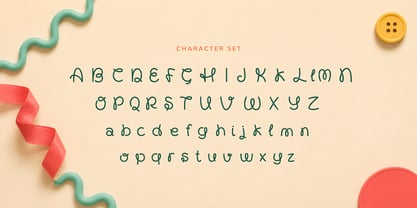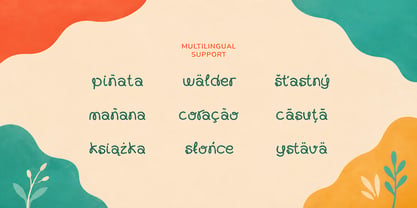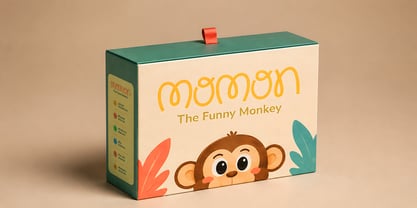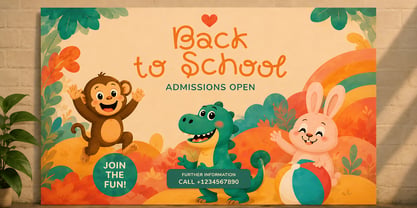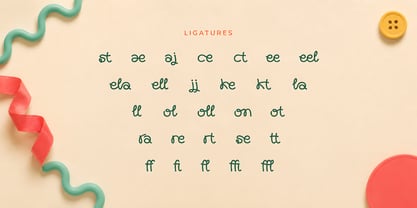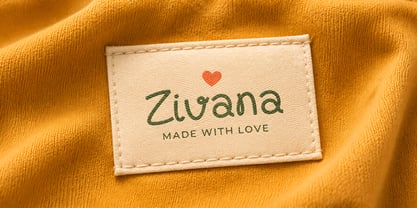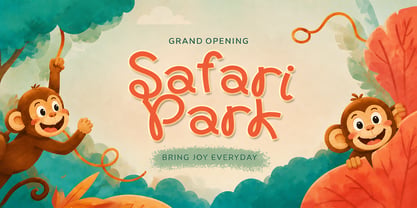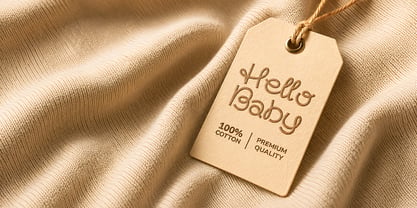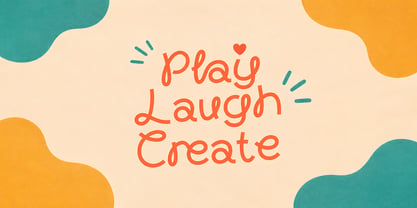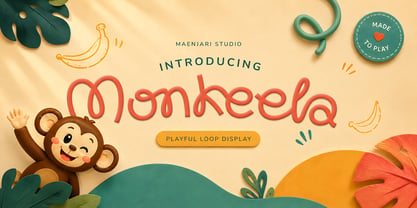
Monkeela
Die Schriftfamilie Monkeela wurde von Maenjari entworfen und von Maenjari Std veröffentlicht. Monkeela enthält 1 Stile. Mehr über diese Familie
Monkeela is a premium display typeface that combines a playful aesthetic with outstanding structural legibility. Its unique looped terminals, bouncy baseline, and organic rhythm make it perfect for display contexts such as children's publishing, casual branding, thematic advertising, and engaging digital media UI/UX. The typeface includes well-balanced kerning pairs and a comprehensive set of OpenType features, such as contextual alternates and standard ligatures that reduce repetitive letter patterns in headlines. Monkeela enables designers to create approachable, friendly, and visually striking brand identities suited for the modern creative market.